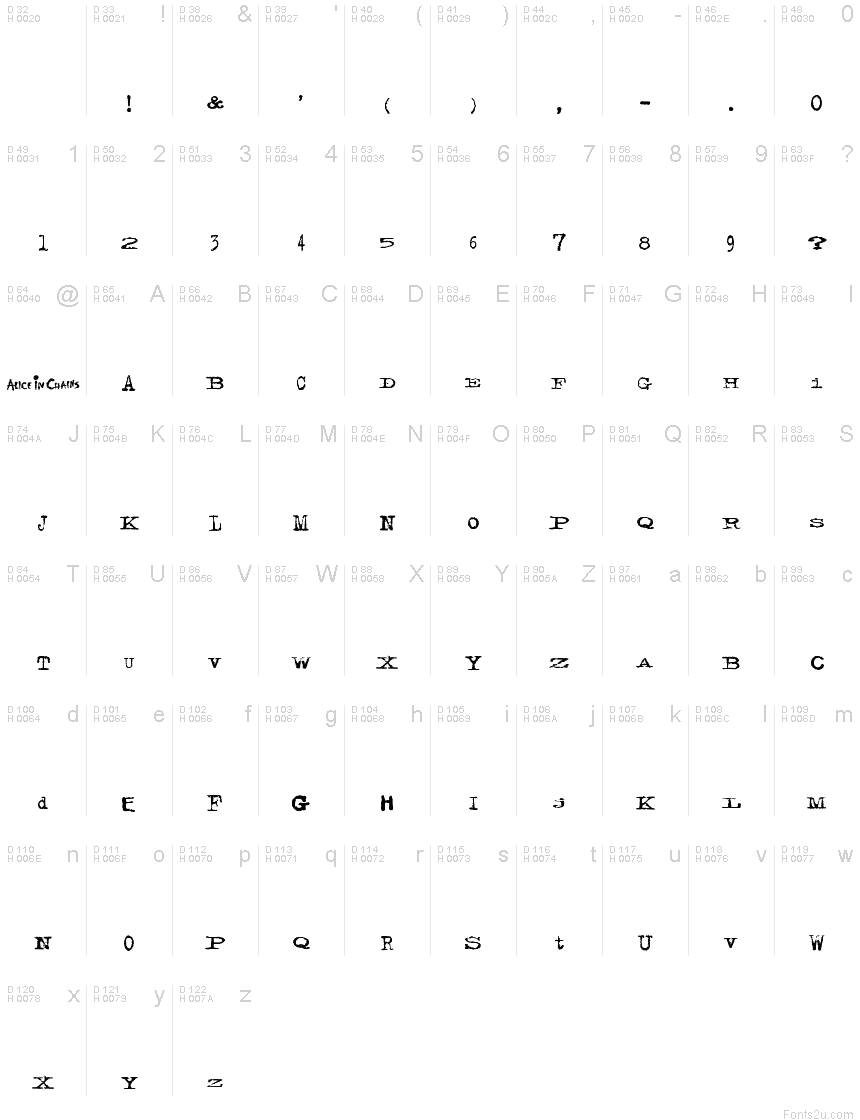
Facelift
Facelift font by Boaz Arad is a free eroded display typeface that looks like it’s been dragged through ink and left to dry in the sun. The letters wobble between blobby and skeletal, with splattered edges and uneven strokes that feel raw and hand-pulled, like distressed rubber stamps on rough paper. It hits that sweet spot between grunge and legibility, so your words still read clearly even while they look gloriously ruined.
Using Facelift, you get instant texture and attitude without extra graphics or filters. This free font works beautifully for horror posters, zines, album covers, escape-room branding, streetwear logos, and gritty social graphics that need a scarred, analog edge. Set it big for titles and pair it with a clean grotesque sans in smaller text to keep the chaos controlled and the message sharp.